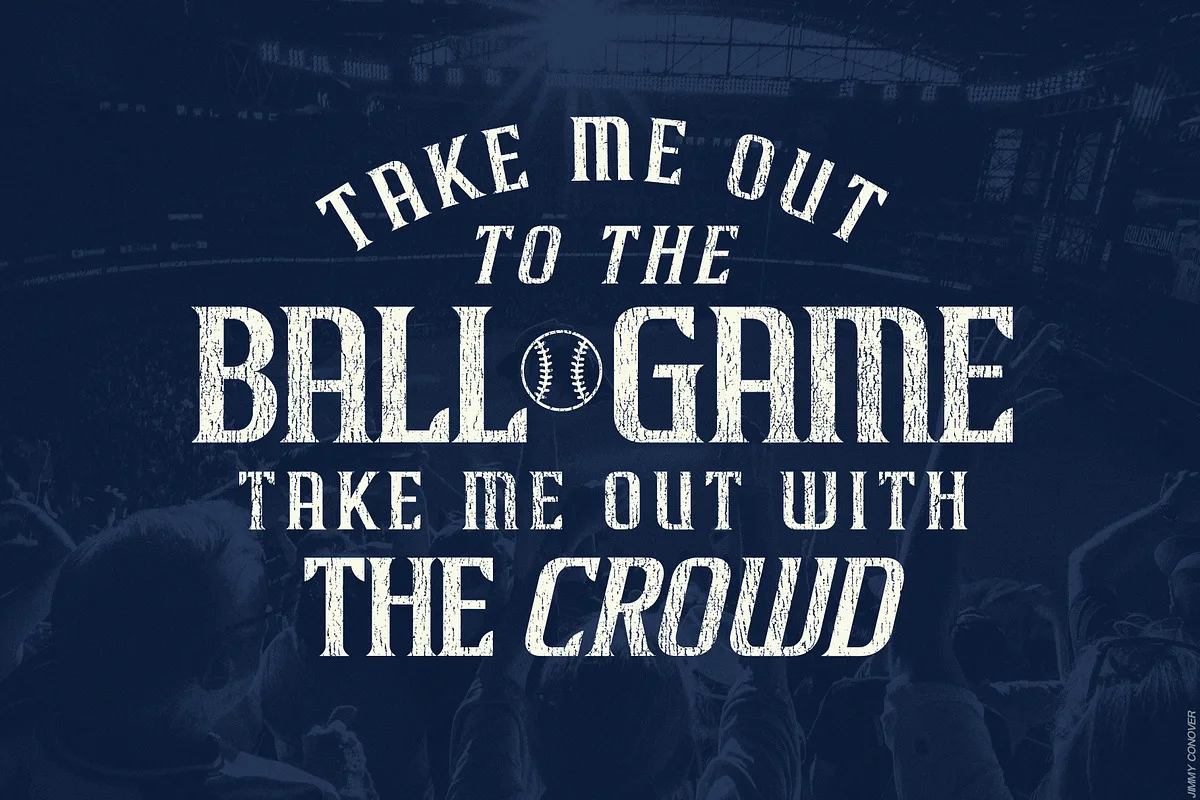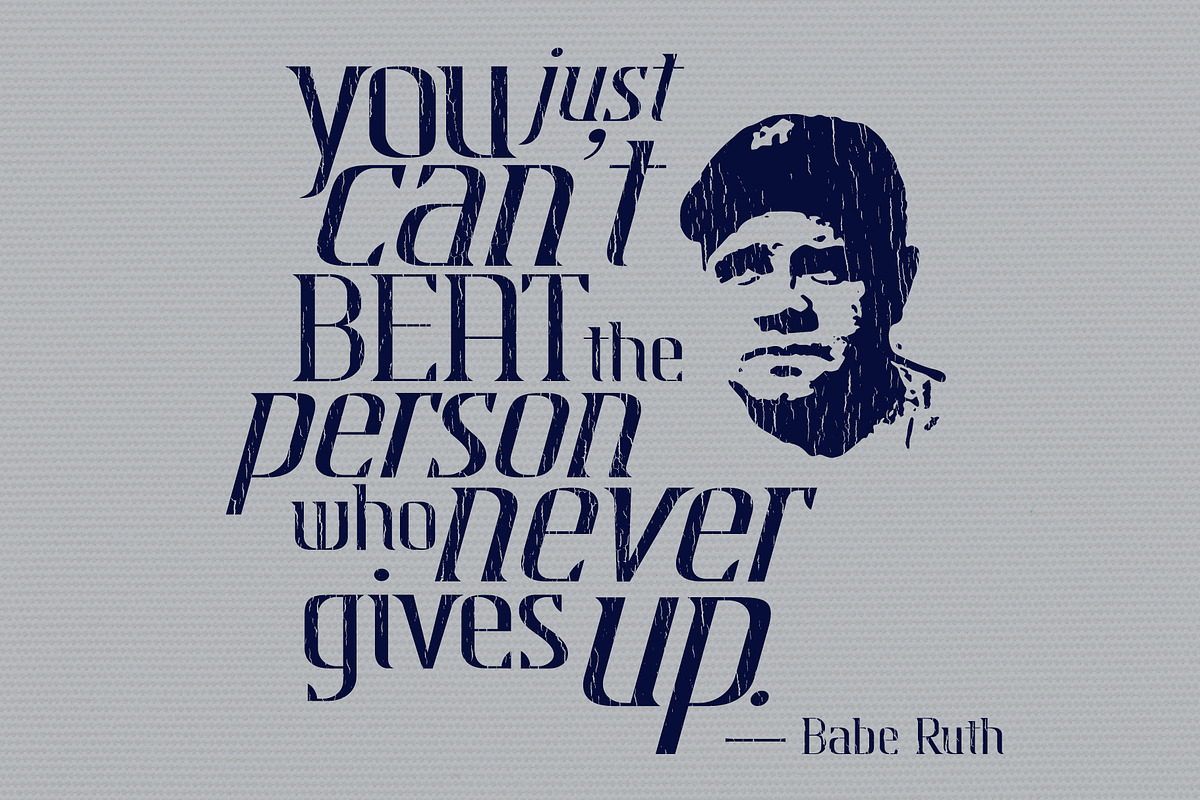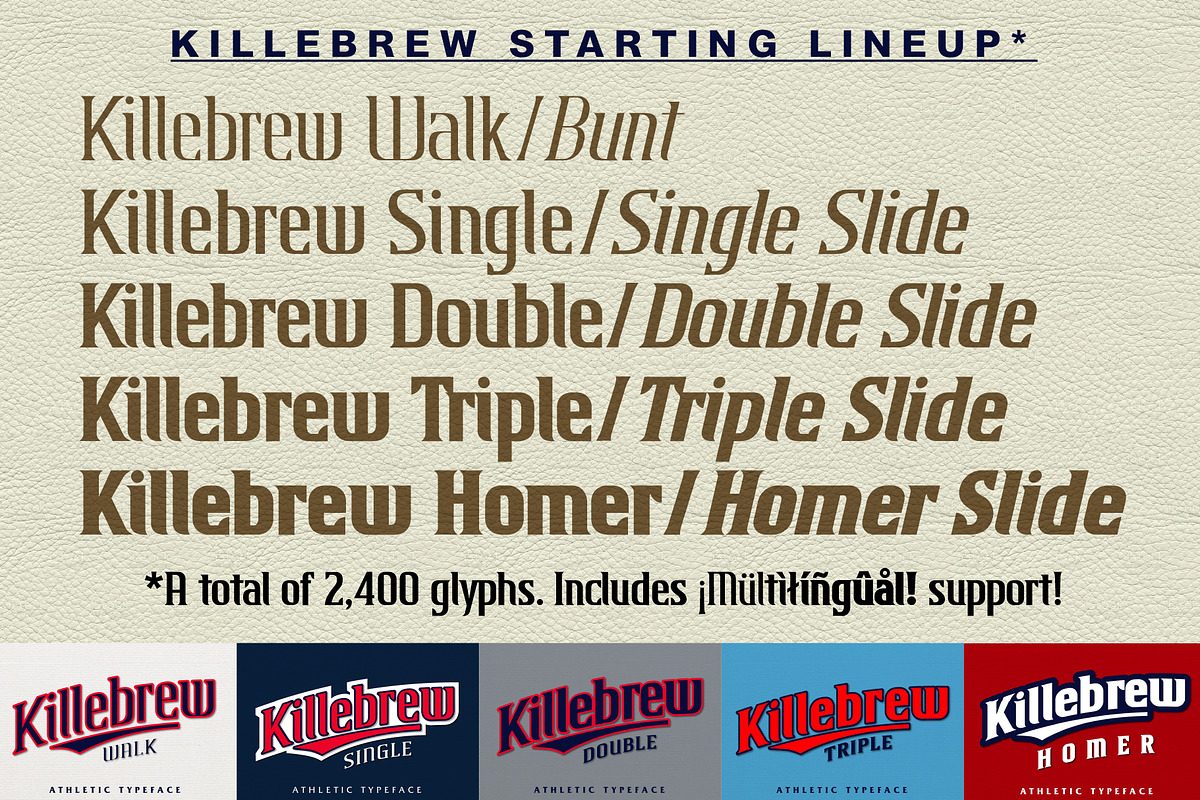
StudioWorks proudly presents Killebrew is a collection of ten hit typefaces sure to bring depth to your dugout! The team’s all here! Every member of the Killebrew club – from Walk to Homer — is featured in this bundle. An impressive assembly of fonts capable of anything you throw at them. Use for rulebooks, program covers, team apparel, scoreboard graphics and everything in between. The range of weights and styles will cover all your bases.
Killebrew Athletic Type Collection